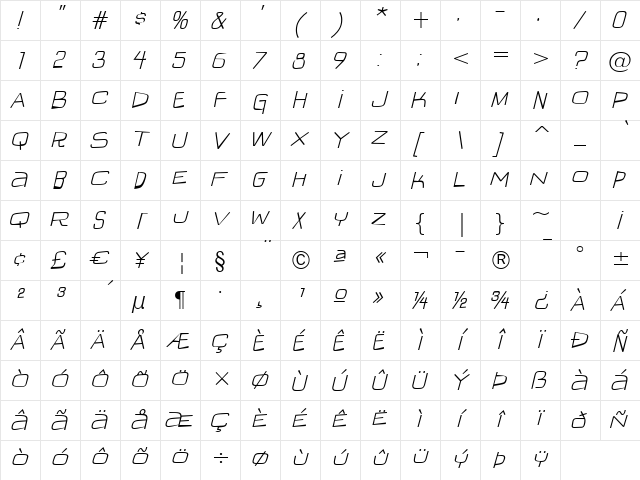
Complete IguanaLover BTN Lt Oblique glyph index. Displaying only characters natively supported by IguanaLover BTN Lt Oblique font.
IguanaLover BTN Lt is a composed and adaptable typeface that performs quietly and consistently across a wide range of design contexts. The slanted form adds forward momentum and visual energy. Its slender proportions lend an understated elegance to any composition.
Pro Tip: Use IguanaLover BTN Lt for emphasis, pull quotes, and subheadings where its slanted energy can add rhythm to the layout.